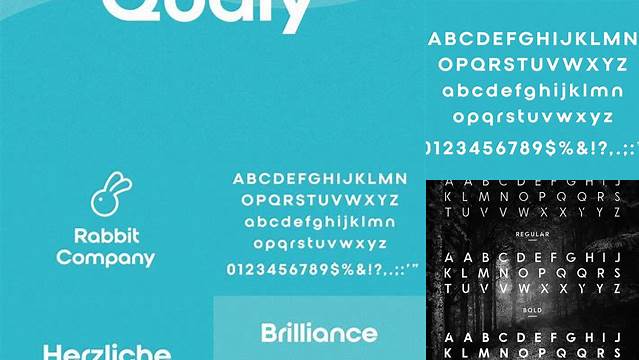
Qualy Font Free Download: Get Stunning Typography Today
Qualy Font Free Download is your gateway to a world of elegant and versatile typography. This article is your comprehensive guide to everything you need to know about this remarkable font, from where to find it, how to use it, and how it can elevate your design projects. Whether you're a seasoned designer or a beginner, Qualy Font offers something for everyone. Let's dive in and explore the beauty and functionality of Qualy Font, and unlock the potential it holds for your creative endeavors. So, grab your favorite beverage, and let's embark on this typographic adventure!
Qualy Font: A Deep Dive into Its Features and Characteristics
Guys, let's kick things off by taking a closer look at what makes Qualy Font so special. This isn't just another typeface; it's a carefully crafted design with unique features that set it apart. Qualy Font is generally characterized by its clean lines, modern aesthetics, and excellent readability. Its versatility makes it perfect for a wide range of applications, from website design and branding to print materials and social media graphics. One of the standout characteristics of Qualy Font is its balanced structure. The letterforms are designed with precision, ensuring a harmonious visual experience. The font's legibility is another key feature; even in smaller sizes, the letters remain clear and easy to read. This is crucial for any design project, as it ensures that your message is effectively communicated to your audience. Moreover, Qualy Font often comes with a variety of weights and styles, allowing you to add depth and personality to your designs. You might find light, regular, bold, and italic versions, giving you the flexibility to create diverse visual hierarchies. This range of options allows you to emphasize certain elements and create a visually engaging layout. The font's modern feel makes it suitable for contemporary designs. It can add a touch of sophistication and elegance to any project, whether you're working on a minimalist website or a high-end marketing campaign. The attention to detail in the design of each letter contributes to its overall appeal. You'll notice subtle nuances that make Qualy Font stand out. These details can be small but they significantly contribute to the font's elegance and visual impact. You will definitely love this font for all your needs.
Benefits of Choosing Qualy Font for Your Projects
Choosing Qualy Font for your projects comes with a ton of benefits. First and foremost, its versatility makes it a great choice for various design needs. Whether you're creating a website, designing a logo, or working on print materials, Qualy Font adapts to different mediums. This is super important because it saves you the trouble of searching for different fonts for different purposes. The clean and modern aesthetic of Qualy Font adds a professional touch to your designs. It conveys a sense of sophistication and style, which is great if you want to make a positive impression on your audience. Another significant advantage is its excellent readability. In a world where attention spans are short, you need a font that's easy to read at a glance. Qualy Font ensures that your message is easily understood, even in smaller sizes, which is a massive plus for user experience. Qualy Font often includes multiple weights and styles, giving you the flexibility to emphasize different elements in your designs. You can use bold for headings, regular for body text, and italics for emphasis, creating a visual hierarchy that guides the reader. It's also relatively easy to find, making it accessible to both professional designers and beginners. You won't have to spend hours searching for this gem; it's usually readily available for download. For those of you looking to establish or reinforce your brand identity, Qualy Font can be a key component. It allows you to create a consistent look across all your marketing materials, boosting brand recognition and recall. And let's not forget the cost factor! Many versions of Qualy Font are available as a free download, making it an accessible and budget-friendly option for your design projects. These reasons should be enough to convince you that Qualy Font is the real deal.